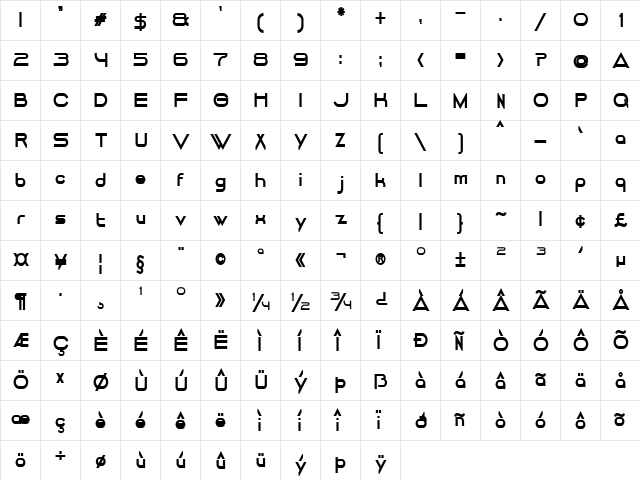
DANCING JUICE Bold
Bold · rimando nillo, jr. dondon nillo ·
Foundry rimando nillo, jr.
StyleBold
Foundryrimando nillo, jr.
Designerdondon nillo
Design Context for DANCING JUICE Typeface
DANCING JUICE is a composed and adaptable typeface that performs quietly and consistently across a wide range of design contexts. Its bold stroke weight gives it real presence on the page.